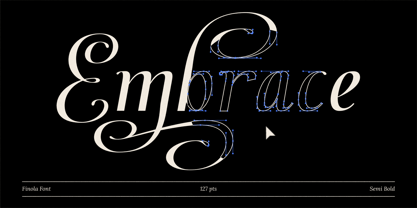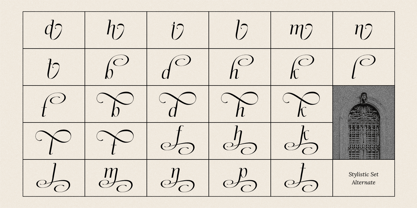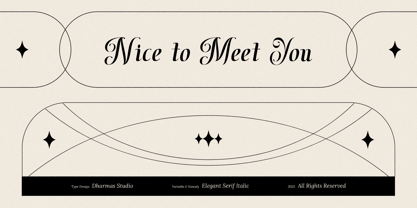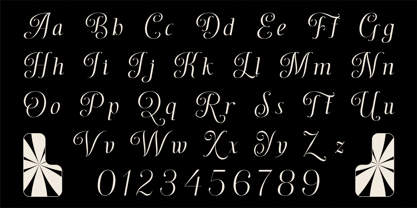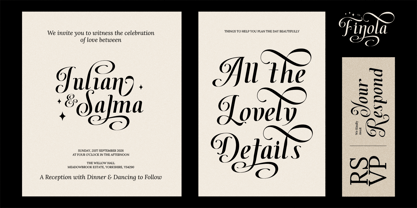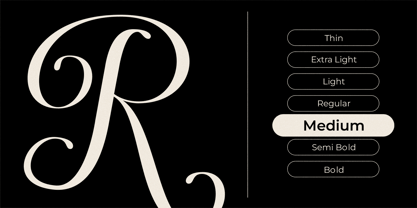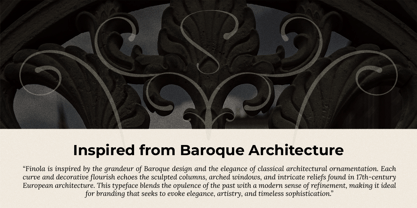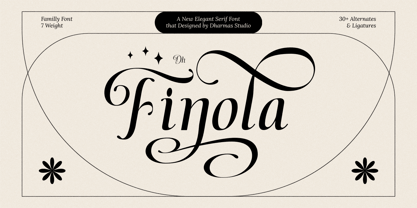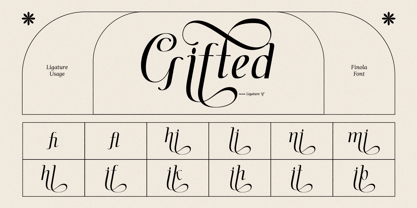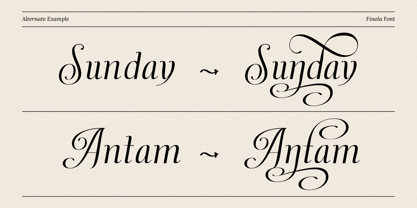
Dh Finola
by Ahmad Jamaludin
The Dh Finola Font Family was designed by Ahmad Jamaludin and published by Ahmad Jamaludin. Dh Finola contains 7 styles and family package options. More about this family
Dh Finola is a luxurious serif font inspired by the beauty of Baroque architecture and classical calligraphy. With its graceful swashes, high-contrast strokes, and flowing curves, Dh Finola radiates sophistication and artistic flair — ideal for wedding designs, romantic branding, editorial projects, fashion, and high-end packaging.
Dh Finola comes in 7 elegant styles — Thin, Extra Light, Light, Regular, Medium, Semi Bold, and Bold — giving designers full control over tone and visual impact. Complete with uppercase and lowercase letters, numerals, punctuation, and extensive multilingual support, Dh Finola also features beautiful ligatures and hundreds of stylistic alternates to help you craft unforgettable compositions.
Dh Finola Font Features:
• 7 Weights: Thin, Extra Light, Light, Regular, Medium, Semi Bold, Bold
• 30+ Swash Alternates and Ligatures
• Letters, numbers, symbols, punctuation, special alternates
From invitations to logo designs, Dh Finola adds a timeless, ornamental touch with modern sensibility.